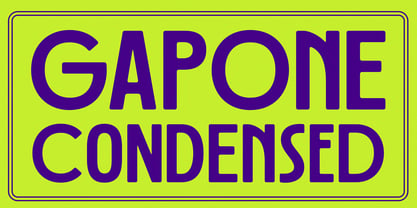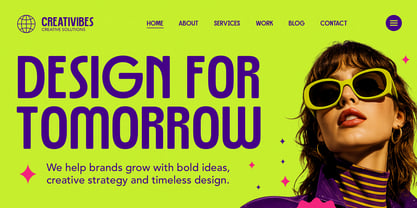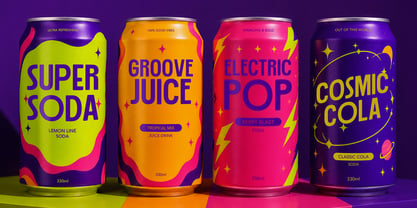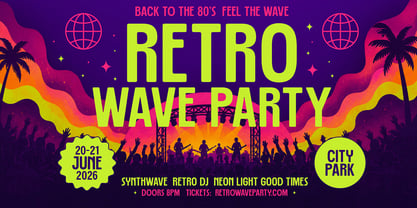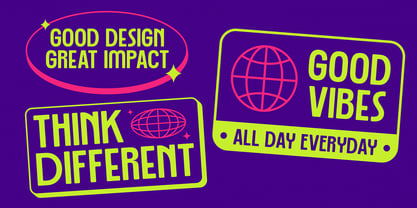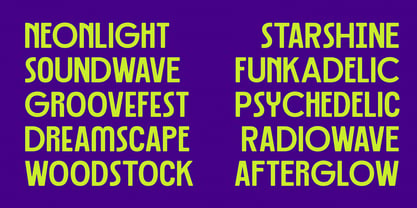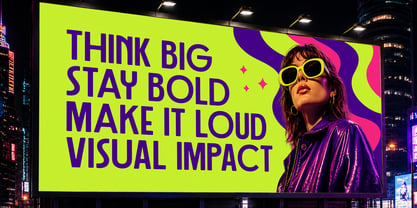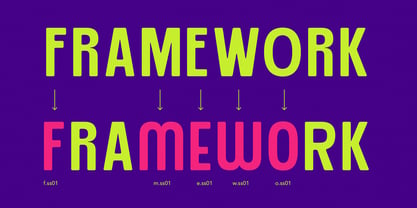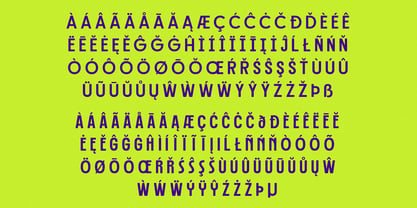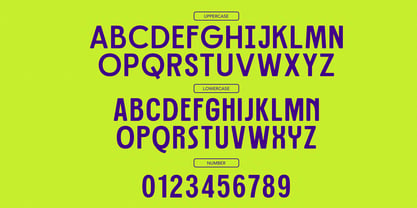
Gts Gapone
by Graptail
The Gts Gapone Font Family was designed by Teuku Deky Firnanda and published by Graptail. Gts Gapone contains 1 styles. More about this family
Gts Gapone Condensed is a bold retro display font inspired by the vibrant energy of the 70s and the playful aesthetics of vintage pop culture. Designed with strong condensed proportions, smooth curves, and eye-catching letterforms, this typeface brings an authentic retro vibe while maintaining a clean and modern appeal.
Perfect for designers looking to create impactful headlines, logos, packaging, posters, merchandise, social media graphics, editorial layouts, and branding projects, Gapone Condensed delivers a strong visual presence that instantly grabs attention.
Its bold personality makes it ideal for music festival posters, disco-themed artwork, retro branding, product packaging, billboard advertising, magazine covers, and creative marketing campaigns. Whether you're building a nostalgic design or a contemporary retro-inspired project, Gapone Condensed helps your work stand out with confidence and style.